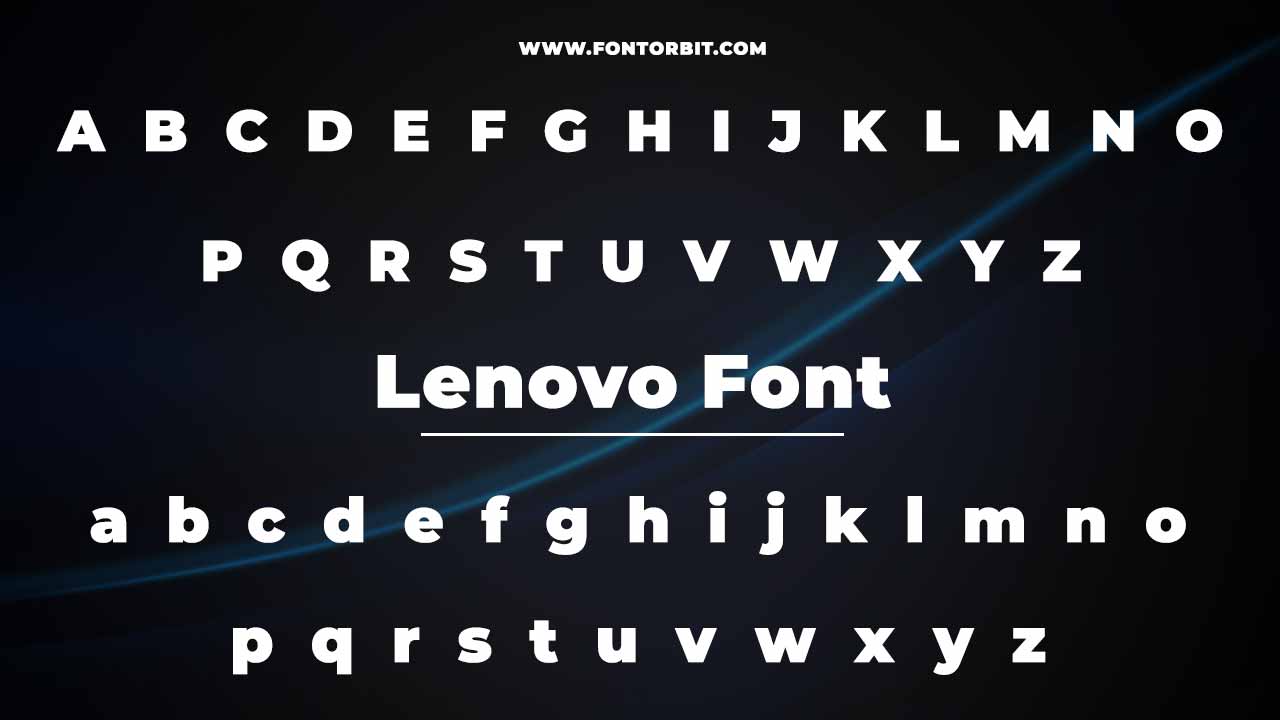
The Lenovo Font, inspired by Lenovo’s global branding, is a clean and contemporary typeface associated with the company’s extensive product range. From laptops and tablets to enterprise solutions, the font and logo have evolved to reflect Lenovo’s commitment to innovation and technology. Designed to convey a sense of reliability and forward-thinking, the Lenovo logo features a bold, sans-serif typeface that embodies the brand’s modern aesthetic.
This typeface is ideal for tech-related projects, corporate branding, and creative designs that emphasize professionalism and innovation.
Type Of Lenovo Font (Font Family)
The Lenovo Font offers variations inspired by the brand’s visual identity:
- Lenovo Regular: A clean and balanced style suitable for corporate use.
- Lenovo Bold: A striking variation for impactful branding and advertisements.
These fonts are versatile, making them adaptable for a range of design needs, from marketing materials to product packaging.
Using Occasions Of The Lenovo Font
Lenovo Font Found In Use
The Lenovo Font captures the essence of modern technology and innovation, making it a popular choice among businesses and designers. Whether you’re creating corporate branding materials, designing digital assets, or enhancing social media content, this font ensures a sleek and professional appeal. Its versatility and association with Lenovo’s global presence make it a timeless choice for various design projects.
1.What Is The Lenovo Font Used For?
The Lenovo Font is primarily used in Lenovo’s branding, including the Lenovo logo, product packaging, and marketing materials. It enhances the brand’s professional look across various platforms, such as laptops, tablets, and promotional posters.
3.Does The Lenovo Font Come In Different Styles?
Yes, the Lenovo Font family includes multiple weights and styles, making it versatile for various applications such as web design, modal window layouts, and corporate documents. Whether you’re designing a poster, creating a presentation, or crafting a social media post, it offers adaptable options.
6.Are Lenovo Fonts Available In Multiple Languages?
Yes, Lenovo-inspired fonts typically support a wide range of languages, including Chinese, English, and more. This multilingual support ensures that Lenovo’s branding reaches a global audience across different regions, including China and beyond.